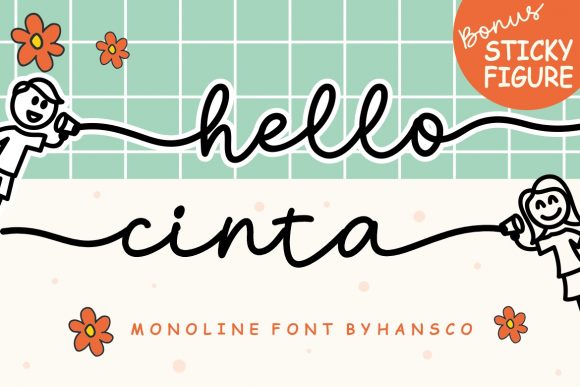
Welcome to the world of exquisite typography, where letters dance with elegance and charm. Introducing Hello Cinta Font, a graceful script font family that captures the essence of heartfelt emotions. With its delicate strokes and fluid curves, Hello Cinta adds a touch of timeless beauty to all your creative endeavors.
Unleash the power of emotional expression with Hello Cinta. This font is more than just a collection of characters; it's a symphony of emotions waiting to be discovered. From wedding invitations that radiate love and romance to thank-you cards that convey sincere gratitude, Hello Cinta transforms your words into heartfelt gestures.
Hello Cinta's versatility shines in the realm of branding and identity. Craft logos and business cards that exude sophistication and charm. This enchanting font is perfect for creating memorable visual identities that leave a lasting impression.
Expand your design horizons with Hello Cinta's PUA encoding. Access an array of swashes and glyphs effortlessly, adding an extra layer of creativity to your projects. Experiment with letter combinations, flourishes, and accents to elevate your designs and make them truly one-of-a-kind.
Hello Cinta is a font that speaks to the heart. Its whimsical yet elegant style adds a touch of magic to any project, whether you're creating stunning invitations, eye-catching social media graphics, or heartwarming personal letters. It's the perfect choice for designers, crafters, and anyone who appreciates the art of beautiful typography.